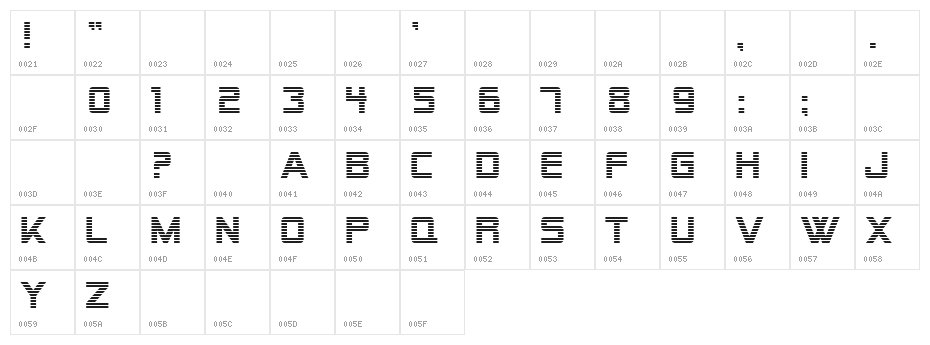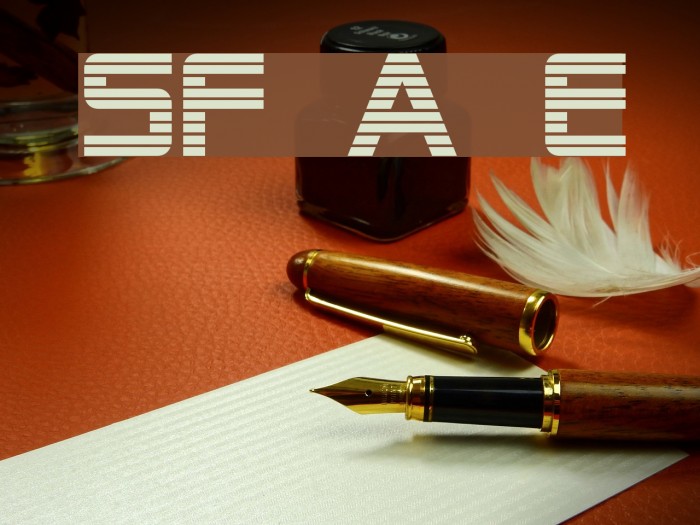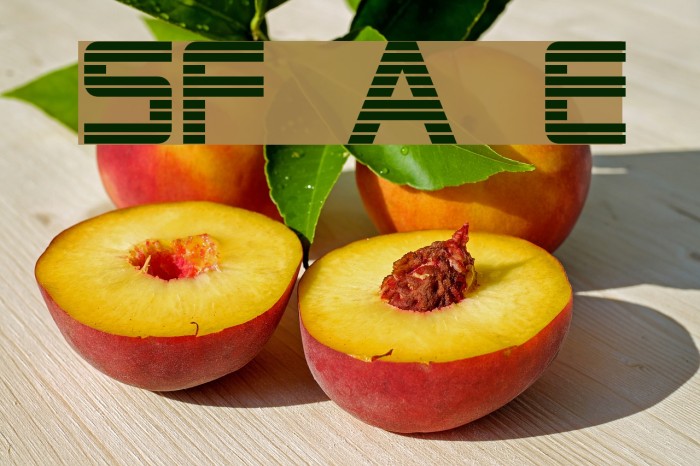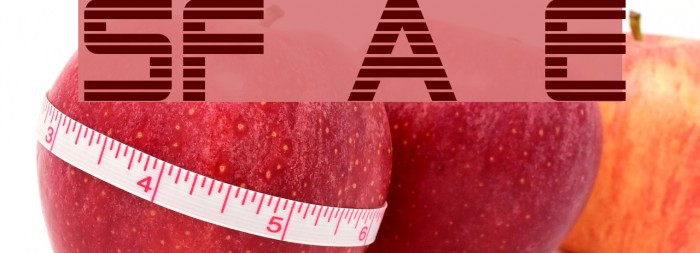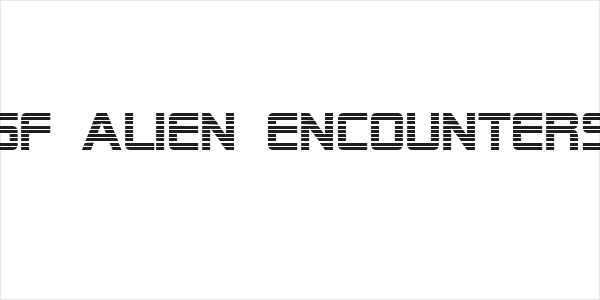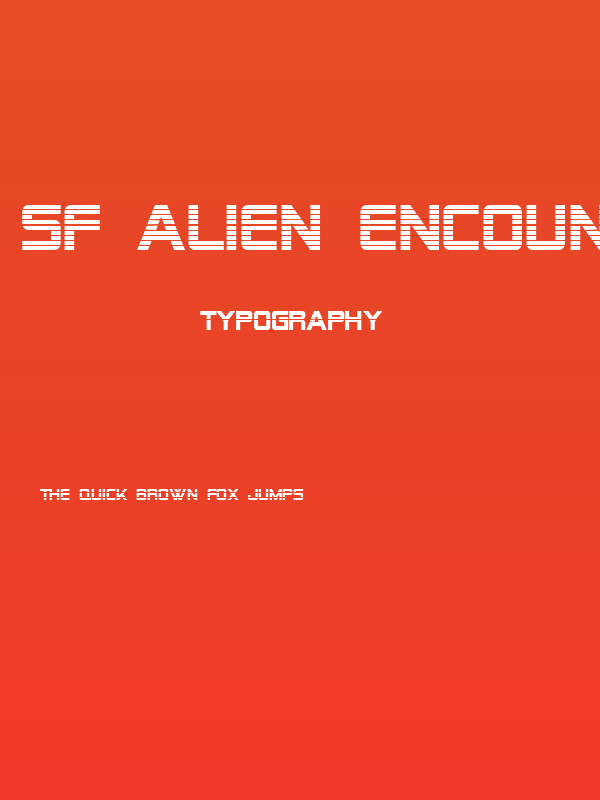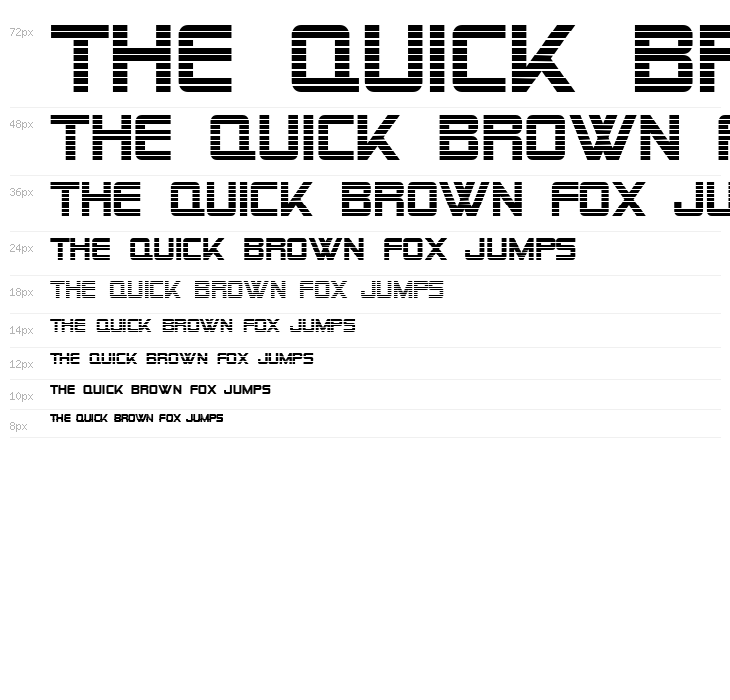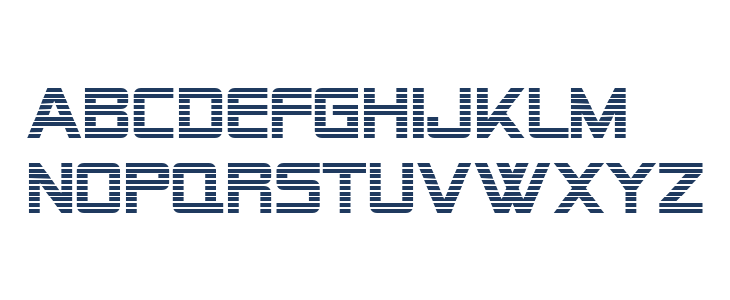
SF Alien Encounters Font
SF Alien Encounters Description
This font features a futuristic and digital aesthetic, characterized by its segmented and linear design. Each character is composed of horizontal lines that create a sense of movement and modernity. The uppercase letters are bold and structured, while the numerals maintain a consistent style that complements the alphabet. The special characters are designed to match the overall theme, providing a cohesive look. This font is ideal for projects that require a high-tech or sci-fi feel, making it suitable for digital interfaces, gaming, and technology branding.
| Proposed Projects | Ideal for technology branding, sci-fi themed projects, digital interfaces, and gaming. |